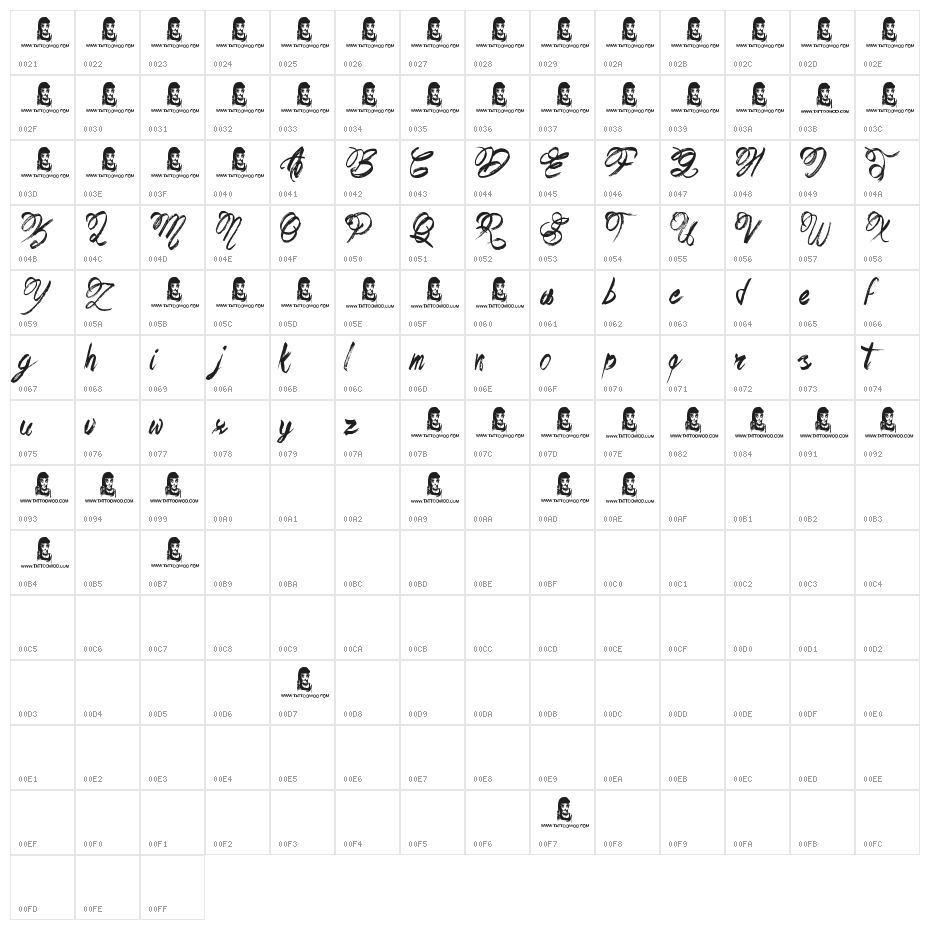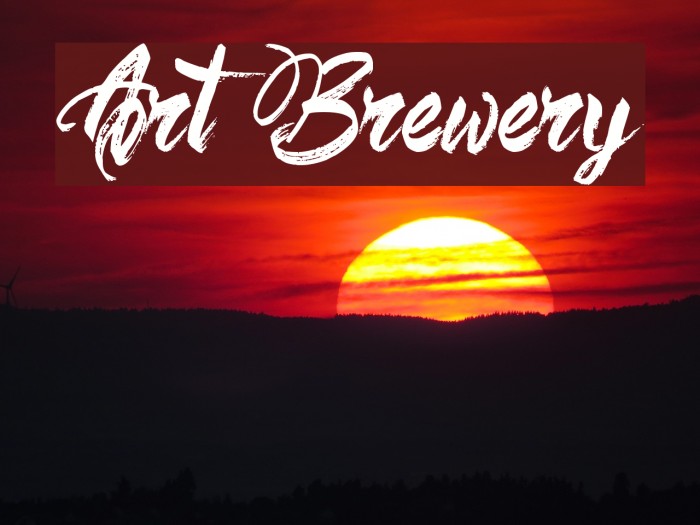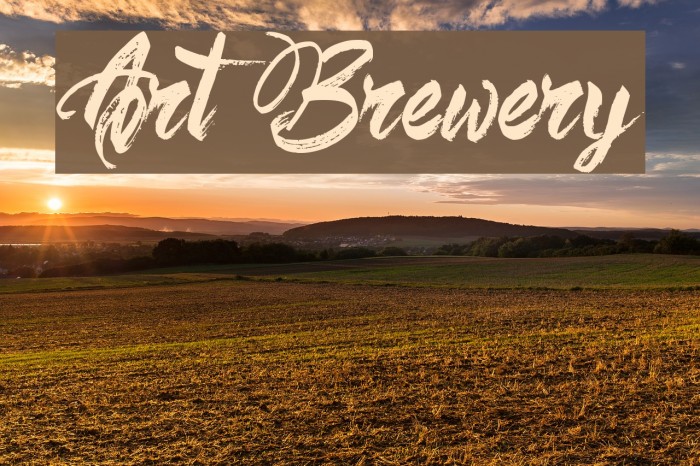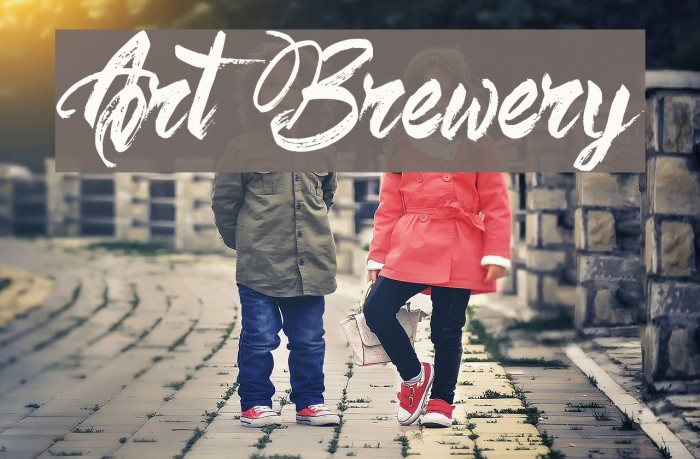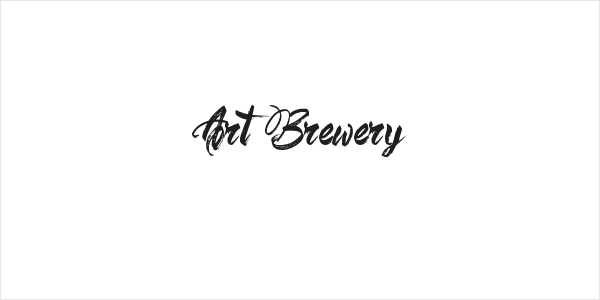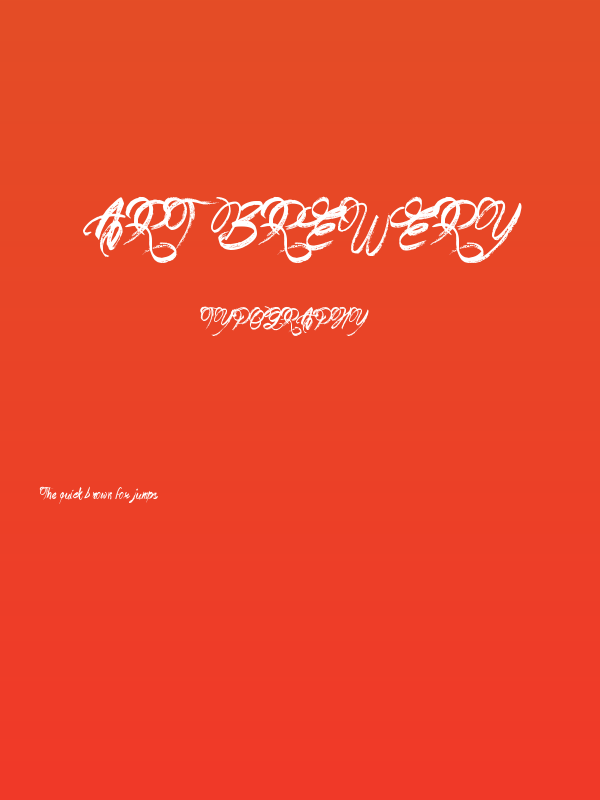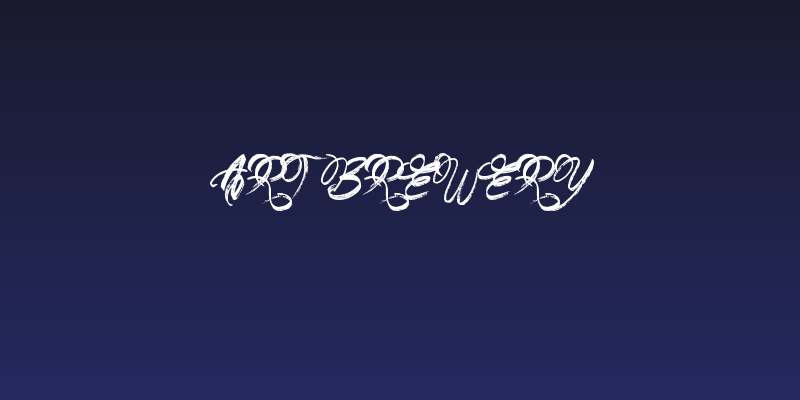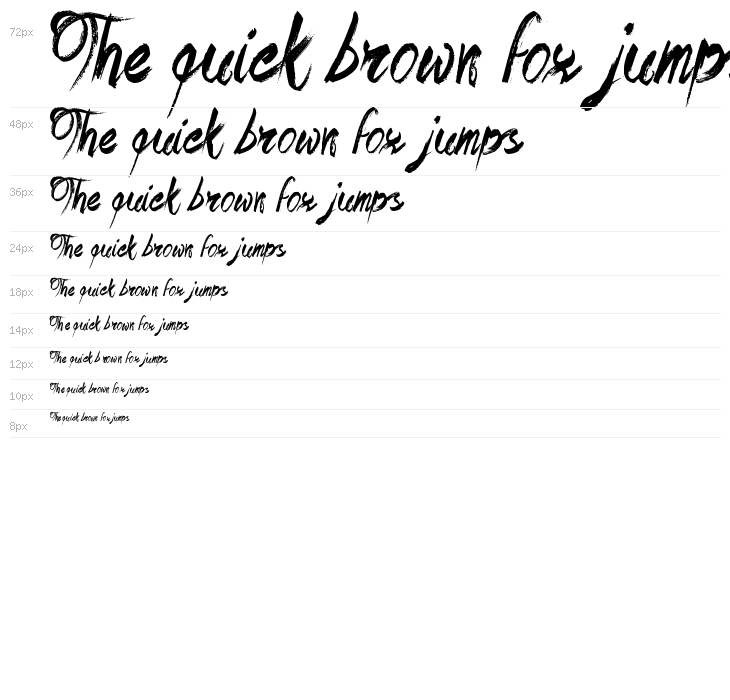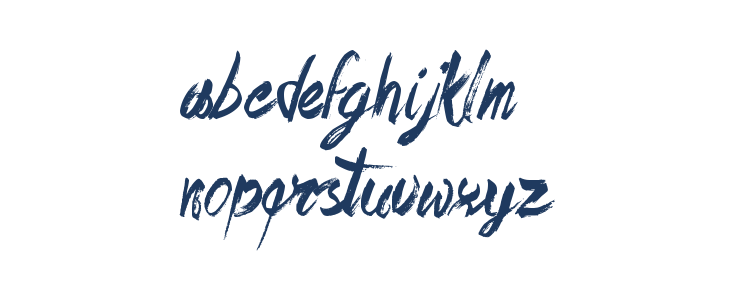
Art Brewery Font
Art Brewery Description
This font features a bold, expressive style with a hand-painted appearance. The strokes are dynamic and fluid, giving it an artistic and energetic feel. The uppercase letters are particularly elaborate, with sweeping curves and flourishes that add a sense of movement. The lowercase letters maintain a consistent style, with a slightly more restrained design. The overall texture is rough and textured, reminiscent of brush strokes, which adds to its handcrafted look. This font is ideal for projects that require a bold statement and a touch of creativity.
| Overall Style | Artistic, Energetic, Handcrafted |
| Proposed Projects | Ideal for artistic projects, branding, posters, and creative headlines. |